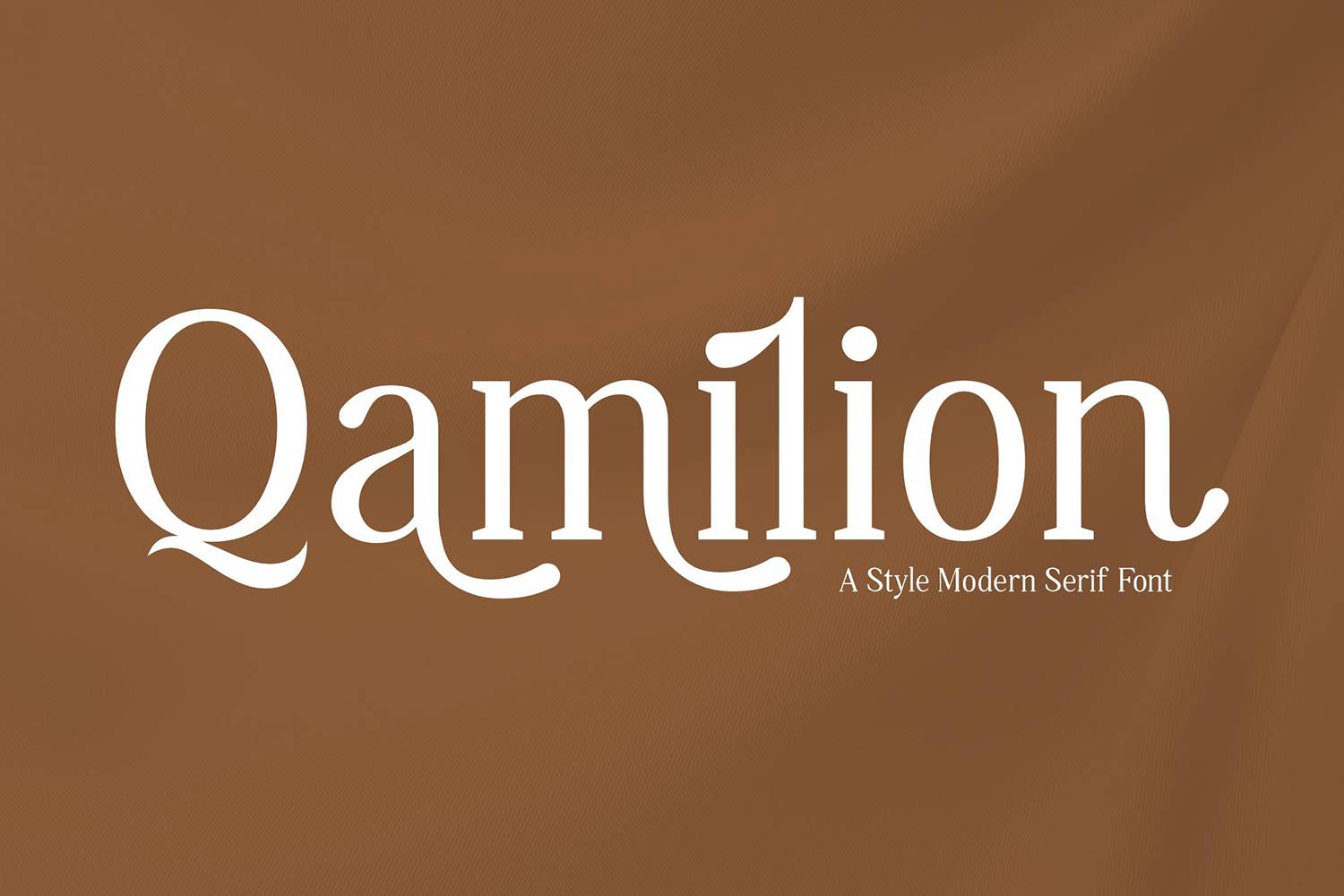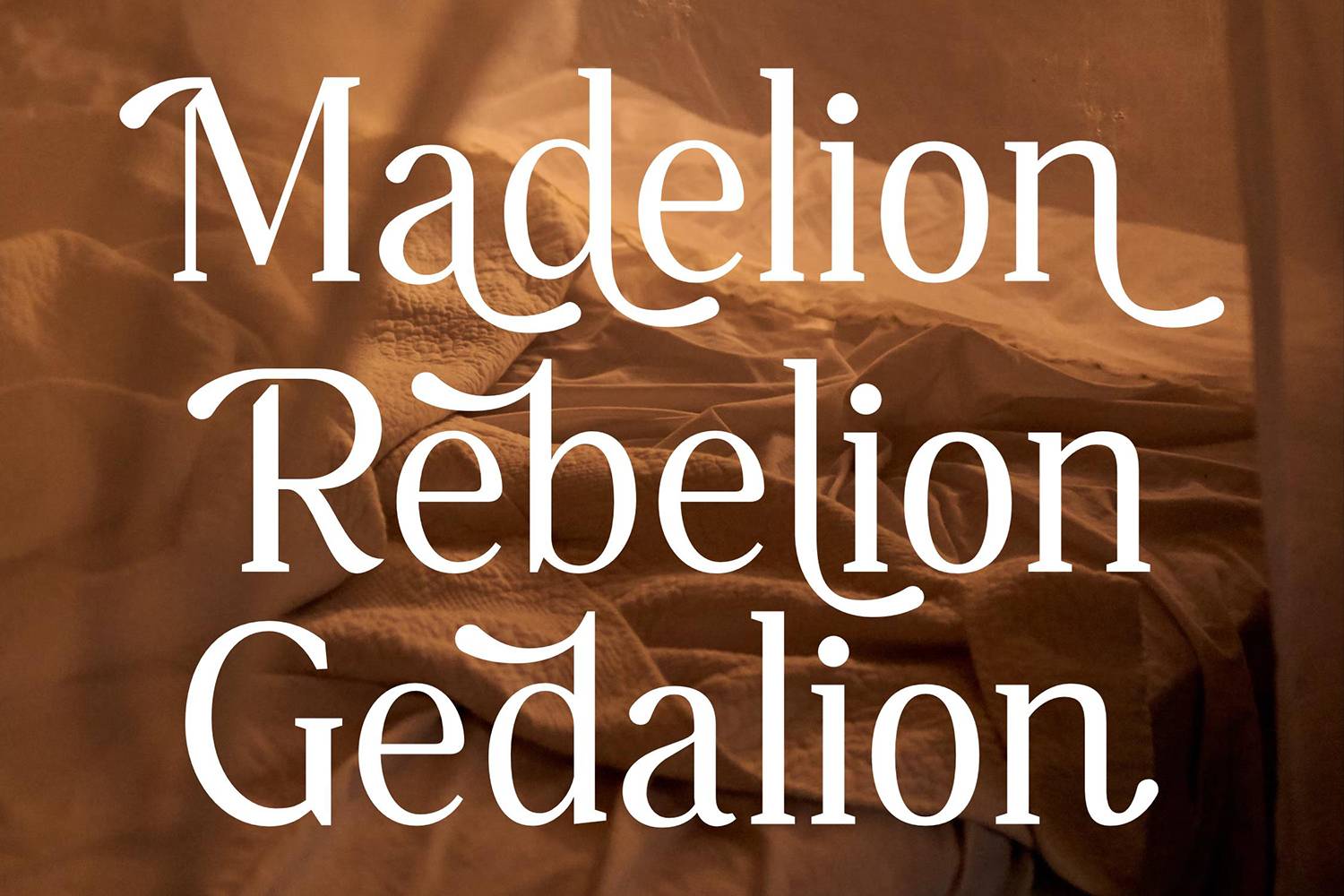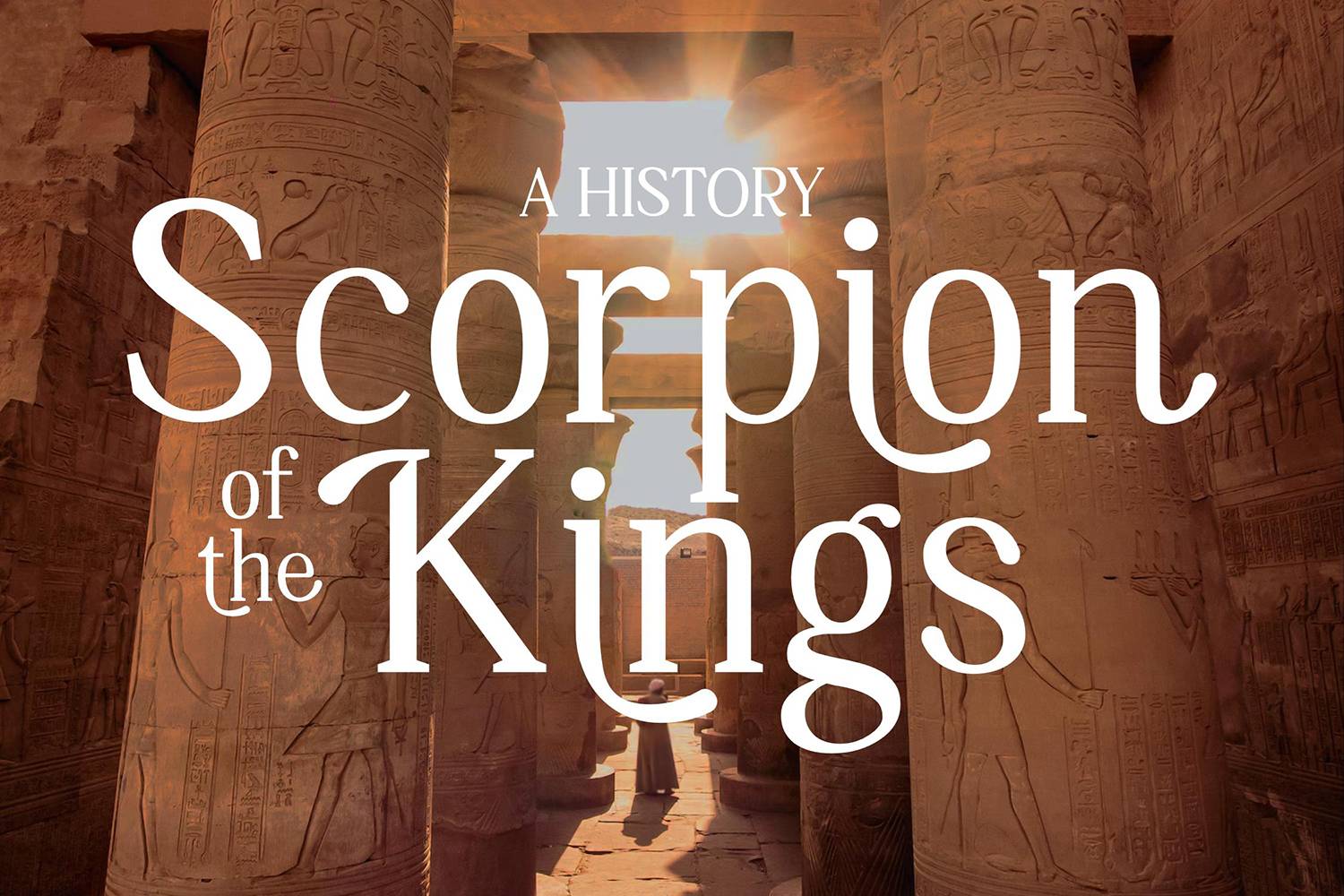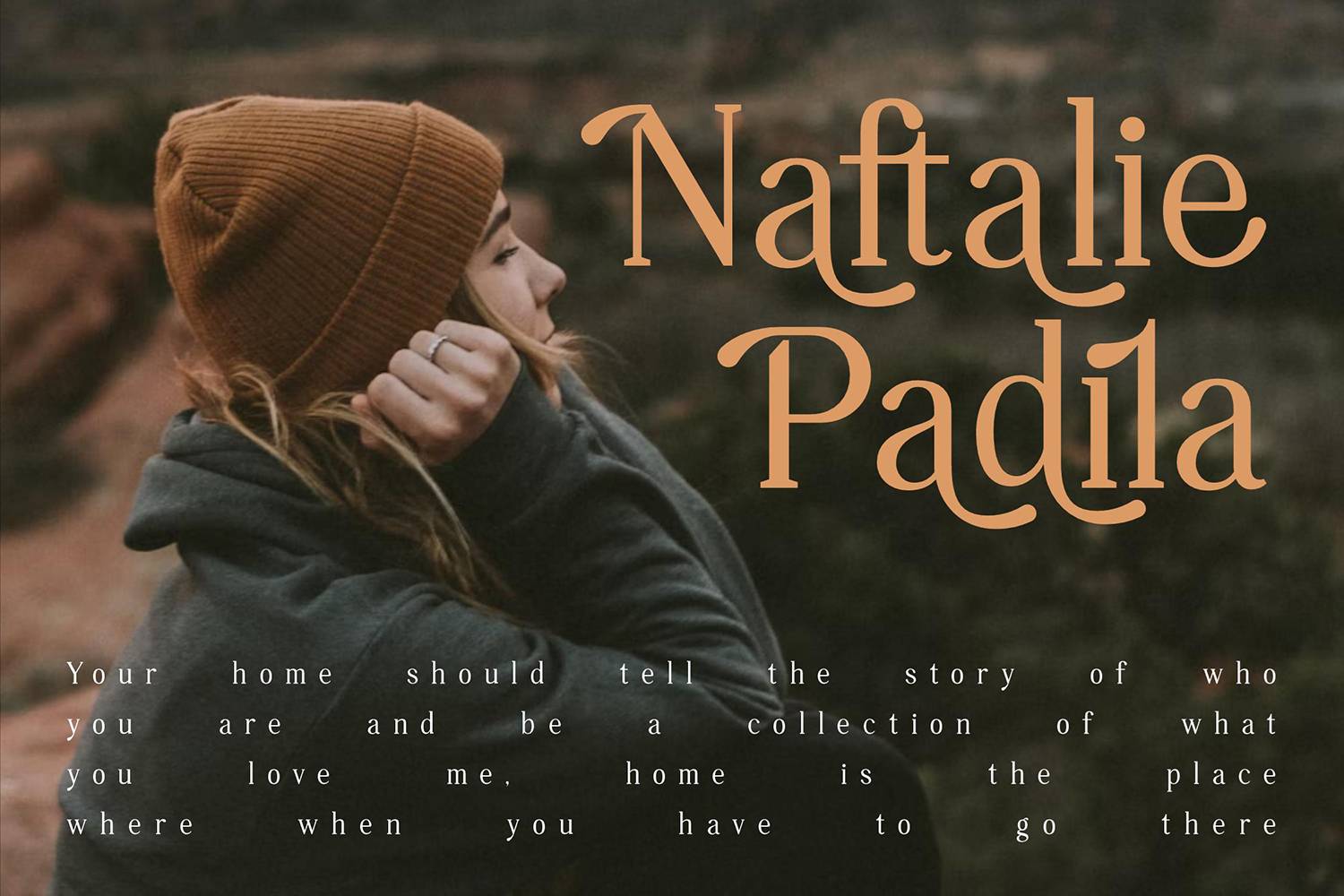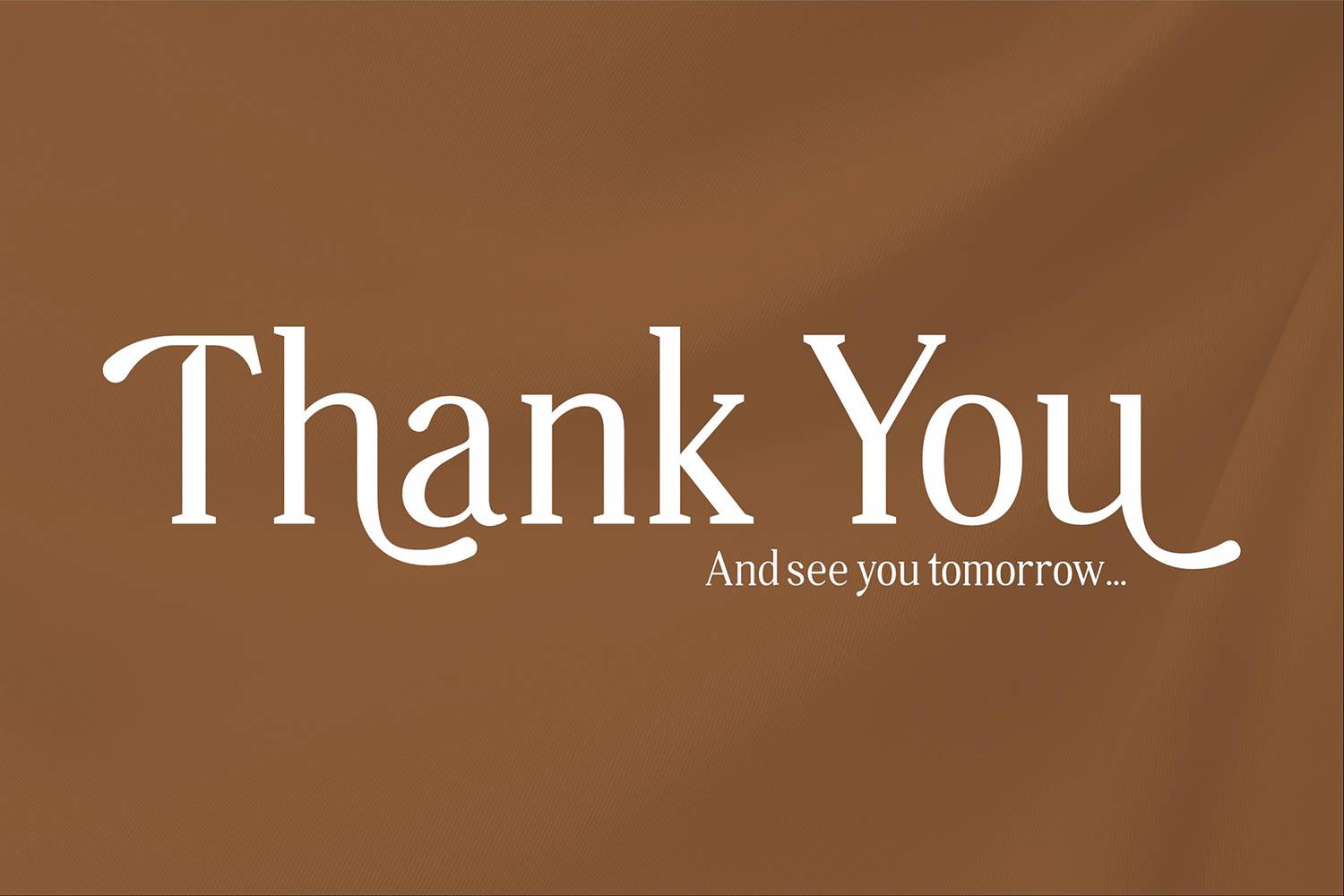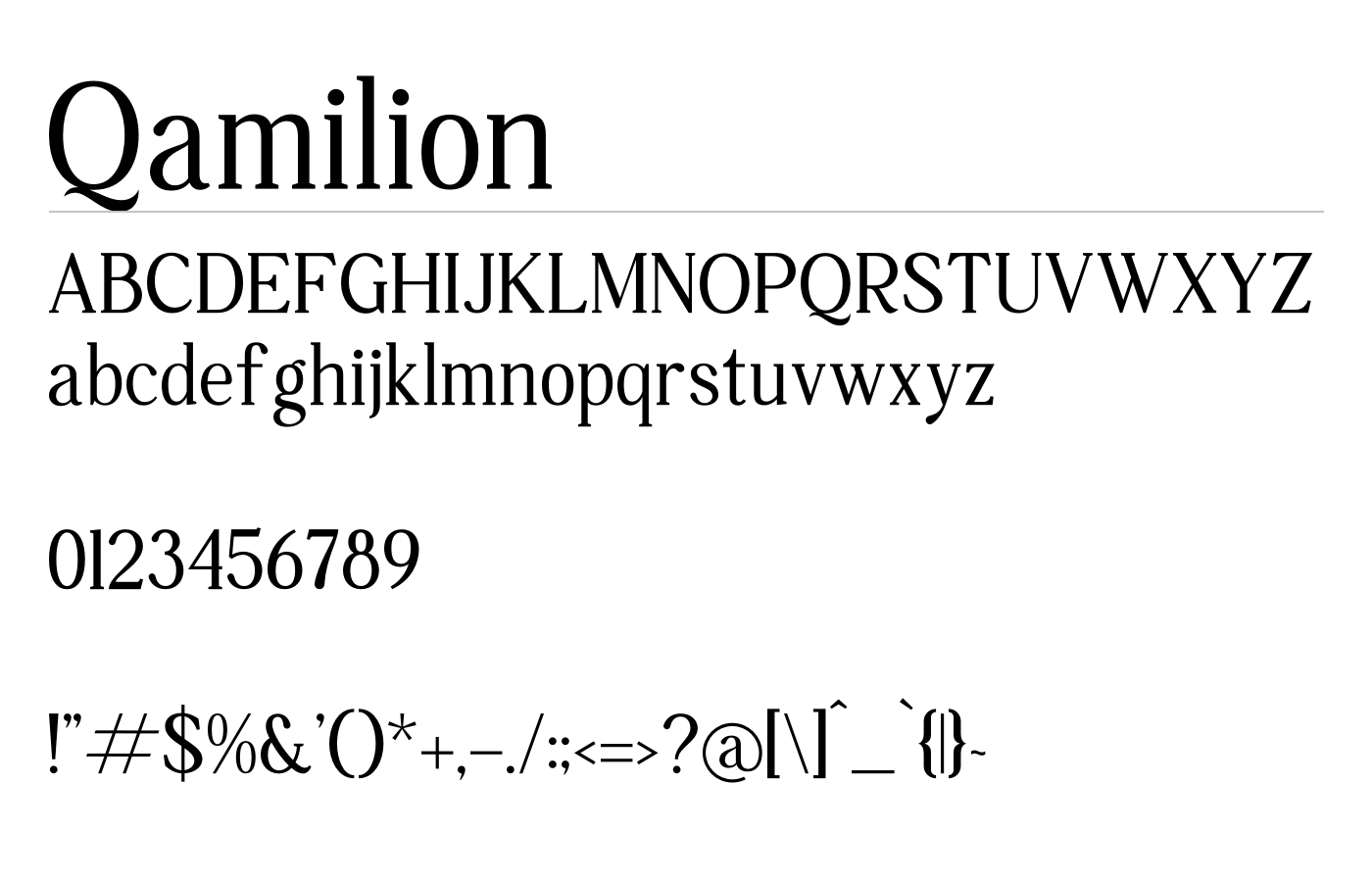
Qamilion is a classic serif font that combines elegance with readability, featuring medium contrast strokes and refined, bracketed serifs that give it a timeless, professional look. Its balanced proportions and clear letterforms make it ideal for traditional editorial use, branding, and formal documents where a touch of sophistication is desired. This font works well in headlines and body text, lending a sense of trustworthiness and refined style to any design.
Qamilion Font
About Qamilion Font